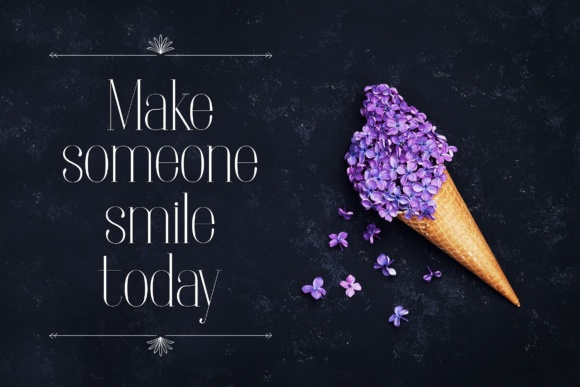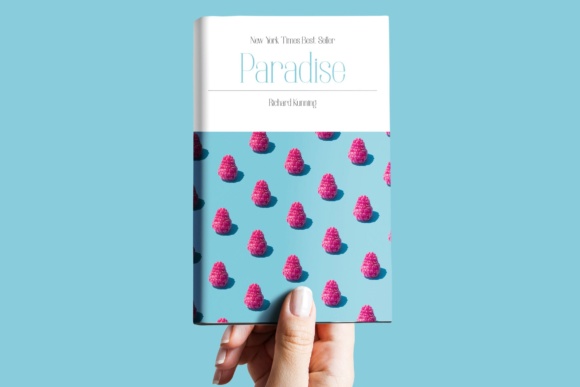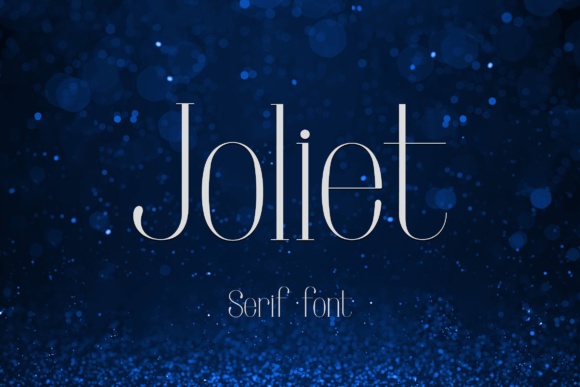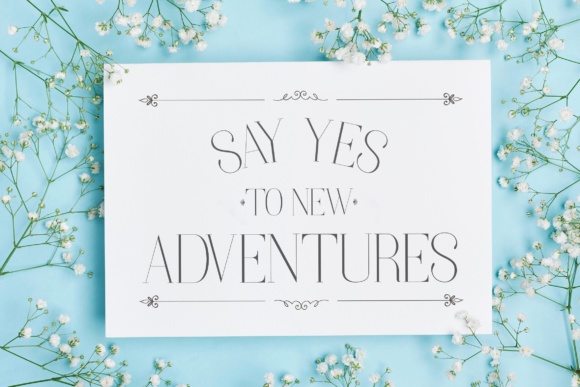
Joliet Font
About the Joliet Font
Welcome to the world of Joliet Font, a typeface that will inspire your next great project. Joliet is a serif typeface perfect for elegant headlines and logo designs. It pairs nicely with script and sans serif fonts, and can add tons of charm to your works.
Joliet’s elegant serifs make it ideal for branding projects requiring a touch of sophistication, particularly logos, short headlines, and packaging where readability at larger sizes is key. It excels in applications that benefit from a classic yet refined aesthetic. However, its high contrast and detailed serifs make it less suitable for body text or UI elements where smaller sizes demand high legibility.
Its inherent elegance pairs beautifully with clean sans-serif fonts like Helvetica or Open Sans for a balanced contrast. For a more luxurious feel, consider pairing it with a delicate script font such as Pacifico or Great Vibes, but use the script sparingly. Geometric sans-serifs offer a modern twist, complementing Joliet’s classic feel.
The overall personality of Joliet is sophisticated and refined, lending itself to brands focusing on luxury goods, high-end services, or timeless craftsmanship. Avoid using it for projects requiring a playful or overtly modern feel.
Joliet Font Usage Examples
Joliet Font Example